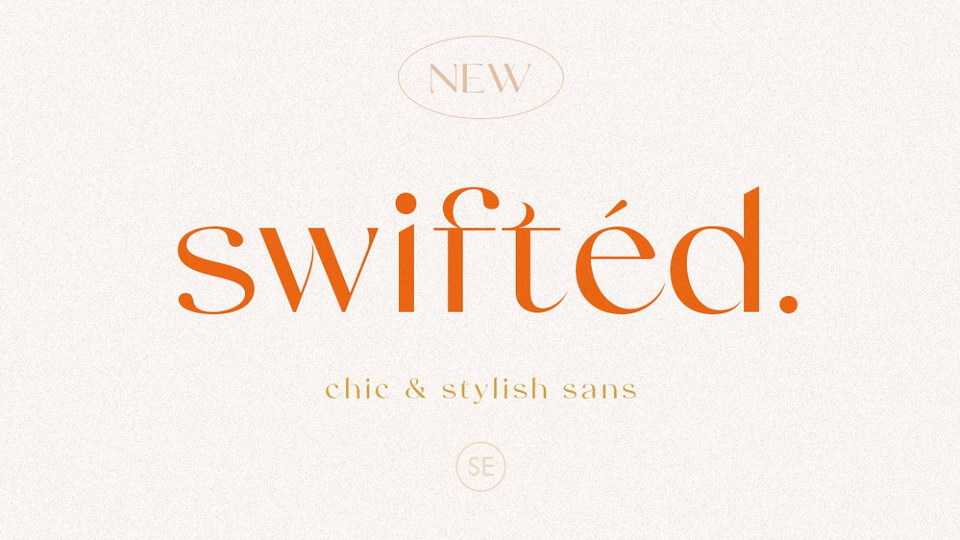
Download Swifted font, a modern and stylish typeface with unique details. Swifted font works best in bigger sizes, useful for headlines, titles, or shorter texts.